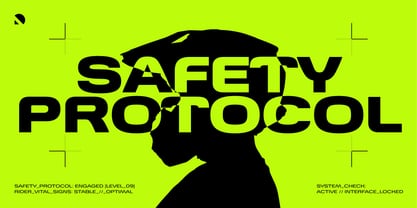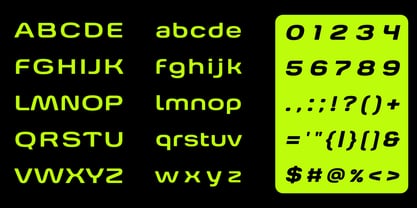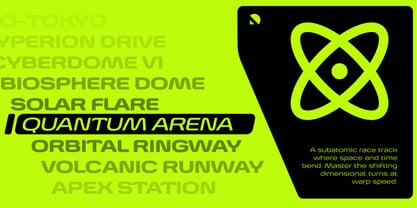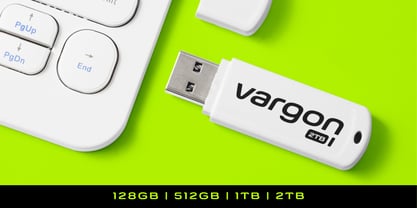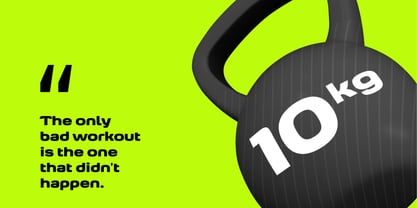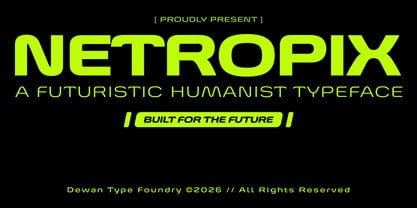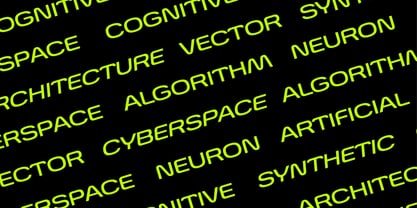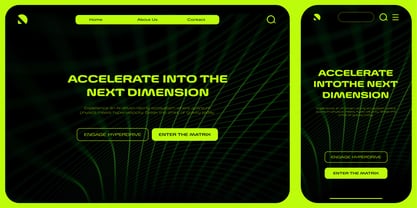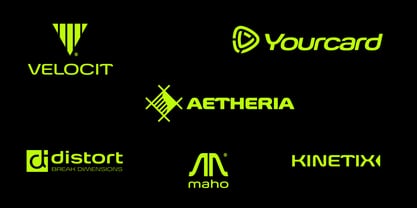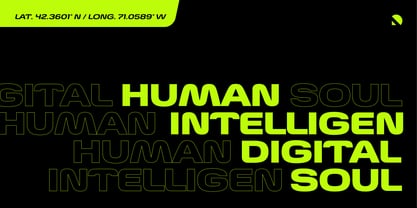
Netropix
by Dewan Type
The Netropix Font Family was designed by Dede Marwan and published by Dewan Type. Netropix contains 20 styles and family package options. More about this family
Netropix is a warm futuristic typeface that beautifully embraces a humanist spirit, crafted by Dede Marwan under the Dewan Type foundry. Moving completely away from rigid and cold sci-fi aesthetics, this font family features smooth, inviting curves that radiate a friendly, organic warmth. Spanning seamlessly from an elegant Thin to a bold ExtraBlack, Netropix balances sleek technological vibes with high legibility. It is an exceptional choice for modern branding, user interfaces, and creative layouts that demand a futuristic yet deeply approachable feel.